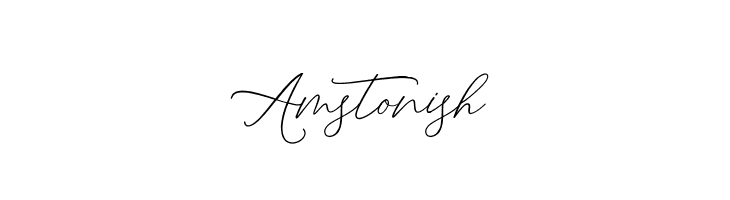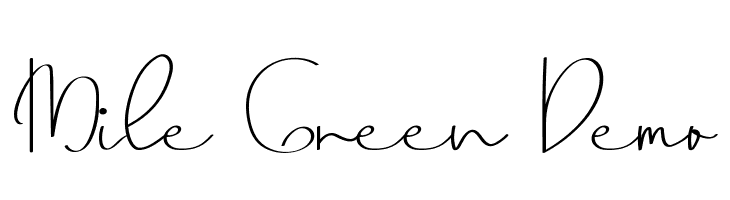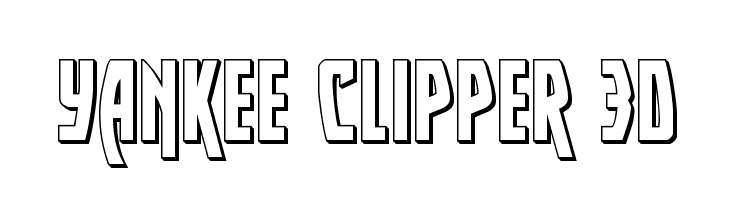
A bold, 3D outlined font with a strong, angular design.
( Lucas Gibim Rodrigues - lucasgirod.deviantart.com )
A decorative font with angular, runic-inspired details.
( Fonts by Fitrah Type )
A bold, playful bubble graffiti-style font with rounded, tightly packed characters.
An ornate, tattoo-inspired script font with elaborate swirls.
A modern, elegant script font with flowing, cursive strokes.
A thin, italic script font with flowing, elegant strokes.
A bold, expressive script font with flowing, cursive letterforms.
A futuristic, angular font with a geometric and dynamic style.
( Fonts by Tebaltipis Studio )
A bold, geometric font with a futuristic and technical design.
A playful, bold font with rounded edges and a hand-crafted feel.